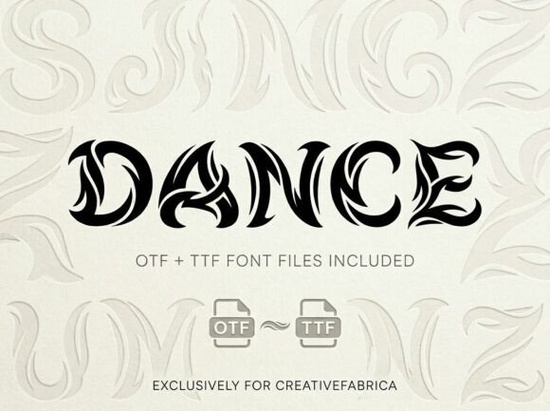
If you are looking for a typeface that brings raw, tribal energy to your projects, the Dance Font is a striking choice. This premium display font uses bold, fluid letterforms with sharp, flame-like points and intricate negative spaces. It mimics the look of flickering fire or flowing ink, making it perfect for designers, crafters, and print-on-demand sellers who need high-impact typography for streetwear, festival posters, or tattoo-inspired branding.
What makes this typeface stand out for bold branding?
The visual appeal of this font lies in its unique architectural balance. It mixes solid black strokes with airy, swirling details. When you use it for a modern dance studio logo or an edgy streetwear label, the letters feel handcrafted and dynamic. The sharp points give it an aggressive, high-energy vibe, while the internal cutouts keep the design from feeling too heavy. This balance ensures your text remains readable even when used at large sizes on banners or vehicle wraps.
Which projects work best with tribal-inspired typography?
Not every project needs this level of visual intensity, but when you need to grab attention, it delivers. Here are a few practical ways to apply it:
- Festival and event posters: The high-energy letterforms match the vibe of music festivals, fire shows, and cultural events.
- Streetwear and apparel: Print-on-demand sellers can use these sharp, flame-like characters for t-shirt graphics and hoodie back prints.
- Tattoo-inspired branding: The fluid, ink-like flow of the letters pairs perfectly with traditional and neo-traditional tattoo shop logos.
If you are working on a cultural campaign header and need something with ancient power, this typeface gives you that dynamic feel. However, if your project requires a softer, more vintage approach to your apparel graphics, you might want to explore a western style typeface instead.
How do you pair it with other fonts in a layout?
Because the letterforms are so detailed, you need to keep the rest of your layout clean. Pair it with a simple, highly legible sans-serif or a clean serif for your body text. If you are designing a festival flyer and want to mix display styles, you could use a retro outlined typeface for secondary headers to create a fun contrast. For a more elegant, feminine touch on a boutique branding project, an elegant display option works beautifully alongside simpler body copy. If your project requires a playful, bouncy vibe for a kids' event, a playful display typeface might be a better fit for the subheadings. And for projects that need a touch of magic or celestial themes, a mystical display style can add a nice secondary accent.
What should you check before sending to print?
When working with intricate negative spaces and sharp points, print quality matters. Keep these technical details in mind:
- Check the line weight: Ensure the thinnest parts of the letters will not break up when printed on fabric or rough paper.
- Test at small sizes: The sharp flame-like details can blur if the text is scaled down too much. Keep it strictly for large headers.
Quick checklist for using high-contrast display fonts
- Use the font strictly for short phrases, titles, or single words.
- Keep the background simple so the intricate internal details remain visible.
- Adjust the tracking slightly if the sharp points feel too crowded.
- Always preview your design at full zoom to check the clarity of the negative spaces.